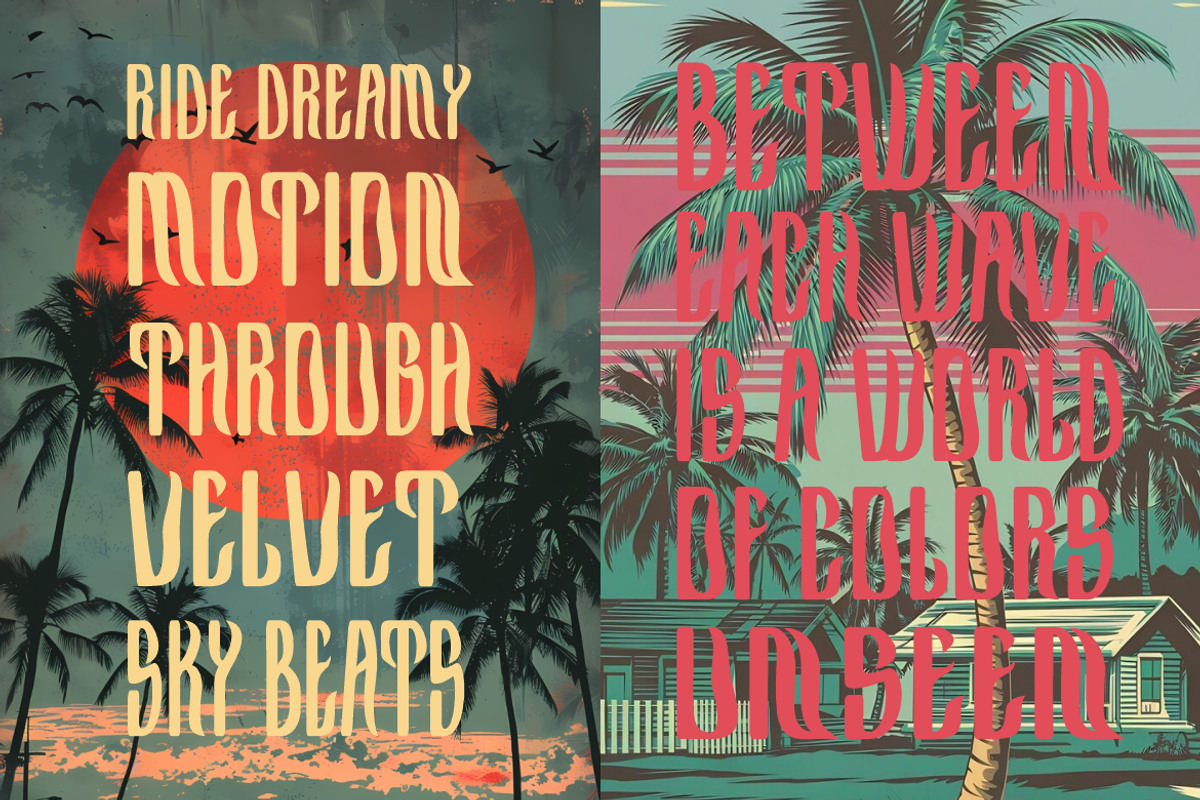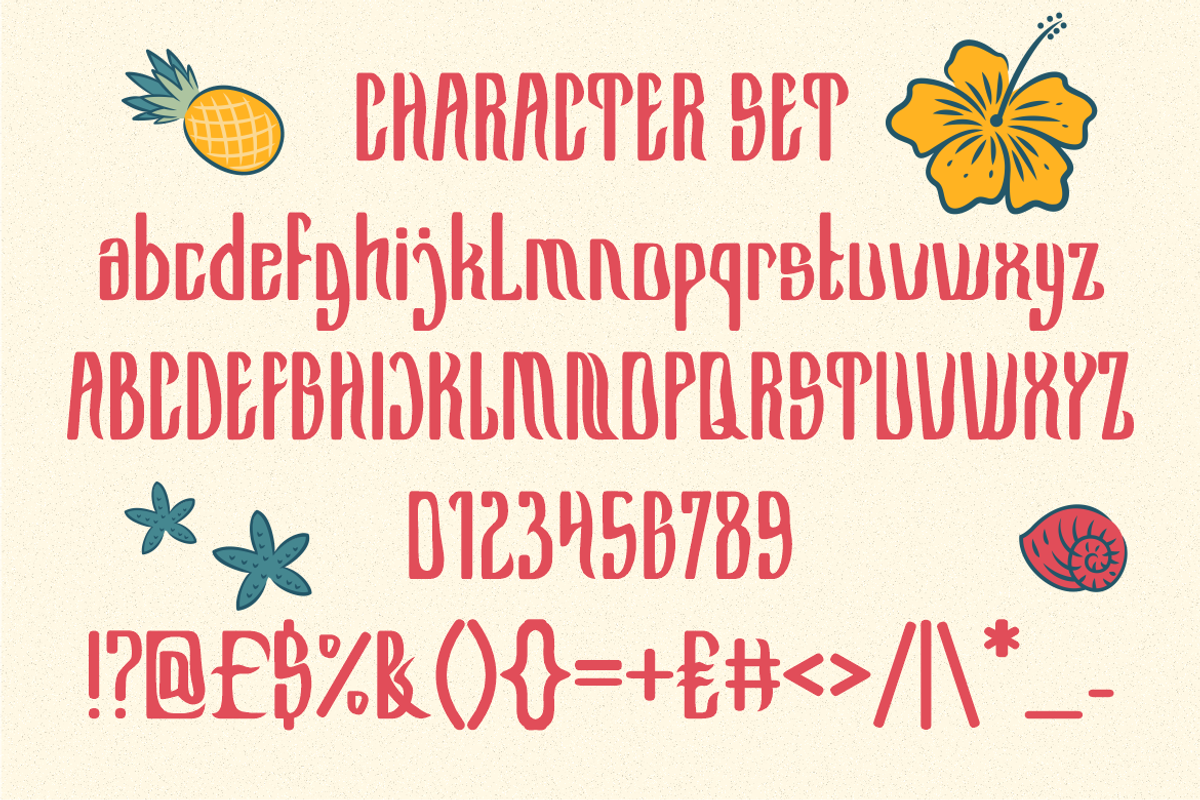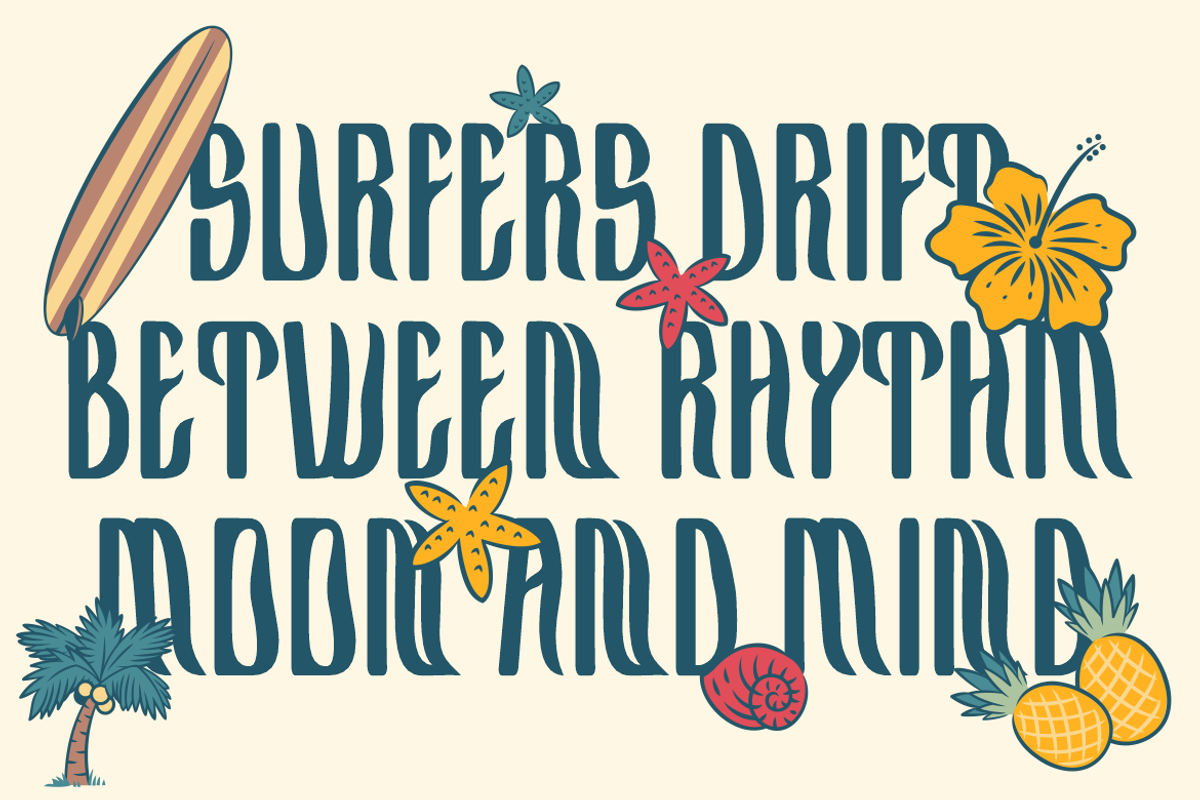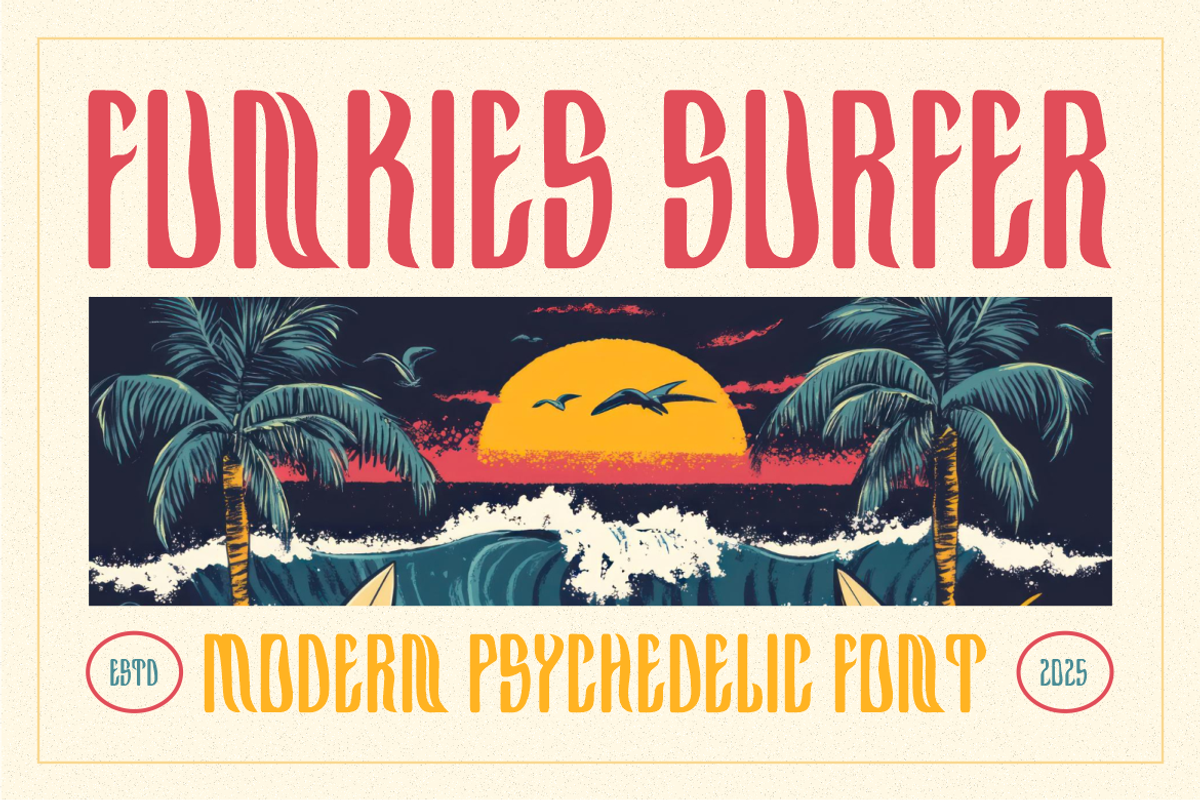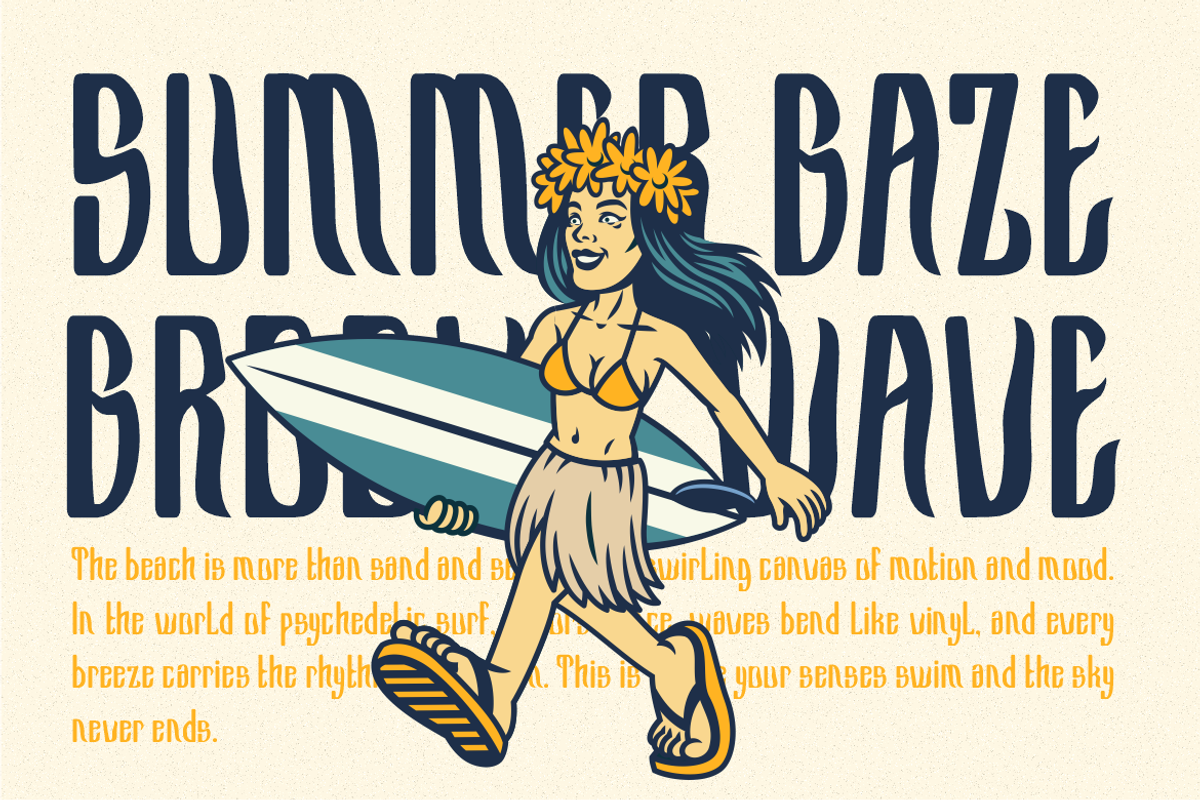
Funkies Surfer Modern Psychedelic
Funkies Surfer is a bold, stylized psychedelic font inspired by retro surf culture, 70s posters, and modern groovy aesthetics. Each letterform is elongated with smooth curves and high contrast, evoking both the movement of ocean waves and the rhythmic visuals of vintage psychedelia. The tall uppercase and lowercase characters provide visual impact, while decorative flair in select terminals adds flair and fun. Its style is playful but professional, making it ideal for high-impact headlines and nostalgic creative branding.
Perfect for logos, posters, merchandise, packaging, or book covers, Funkies Surfer is crafted for creators who want to evoke freedom, color, and retro vibes. This display font works beautifully on vintage surf art, music event titles, summer-themed visuals, or even modern branding that leans into throwback aesthetics. With its complete set of uppercase, lowercase, numbers, and symbols, it’s versatile while staying highly expressive and unique.